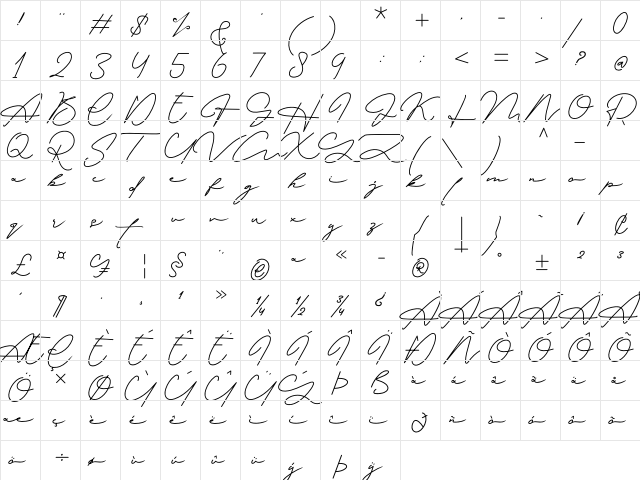
Signature Collection Regular
| Foundry | Halymunt Studio |
| Designer | DENIS |
Design Context for Signature Collection Typeface
Signature Collection is a composed and adaptable typeface that performs quietly and consistently across a wide range of design contexts.